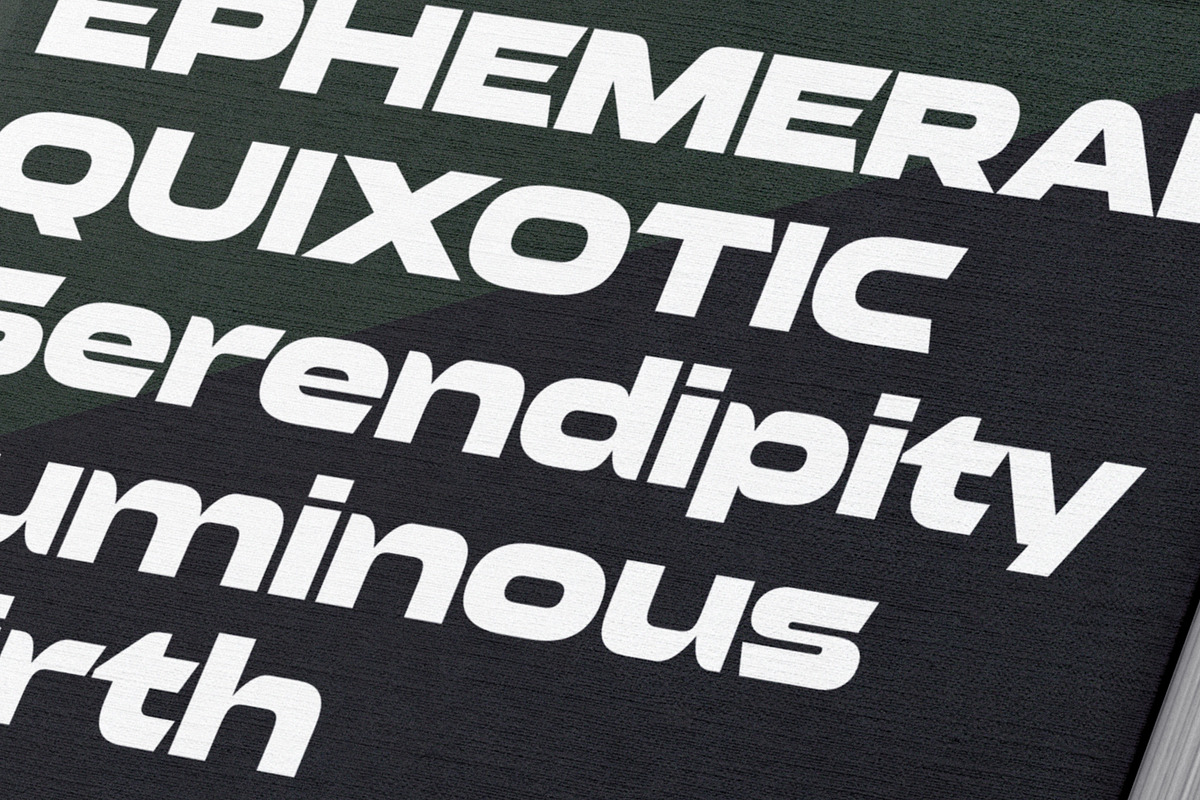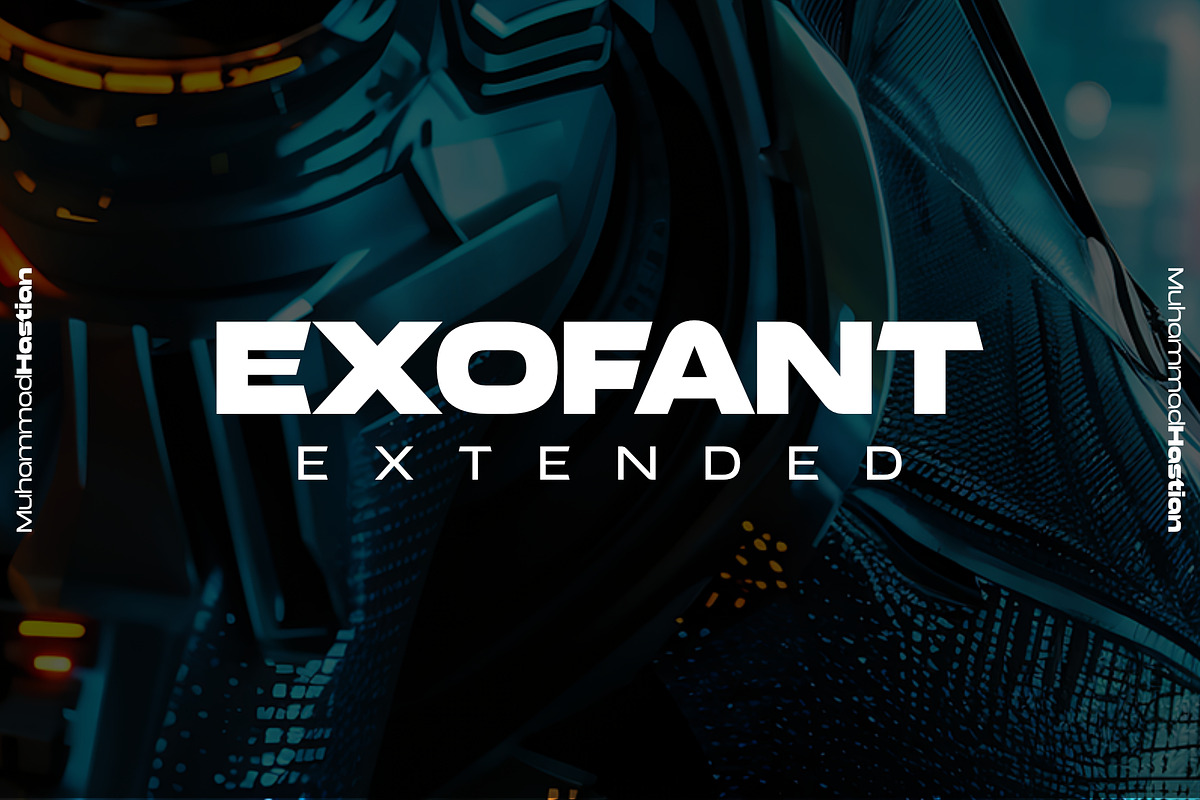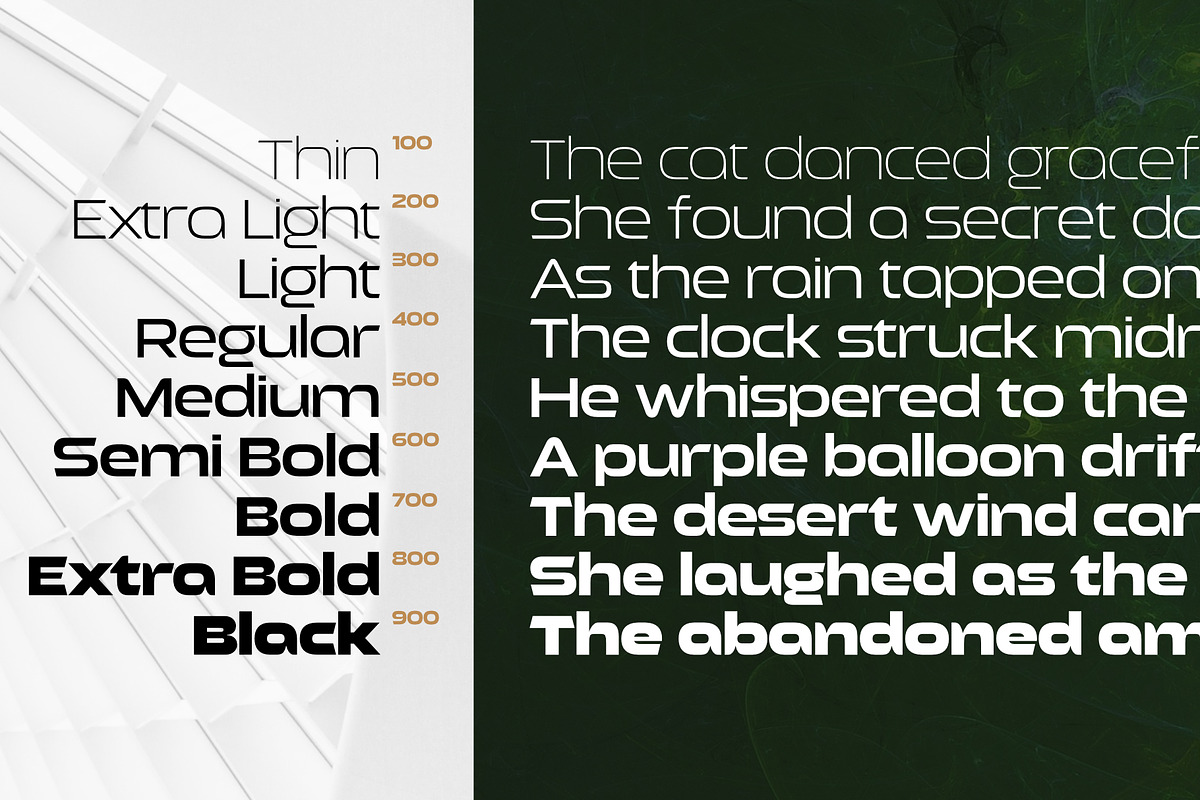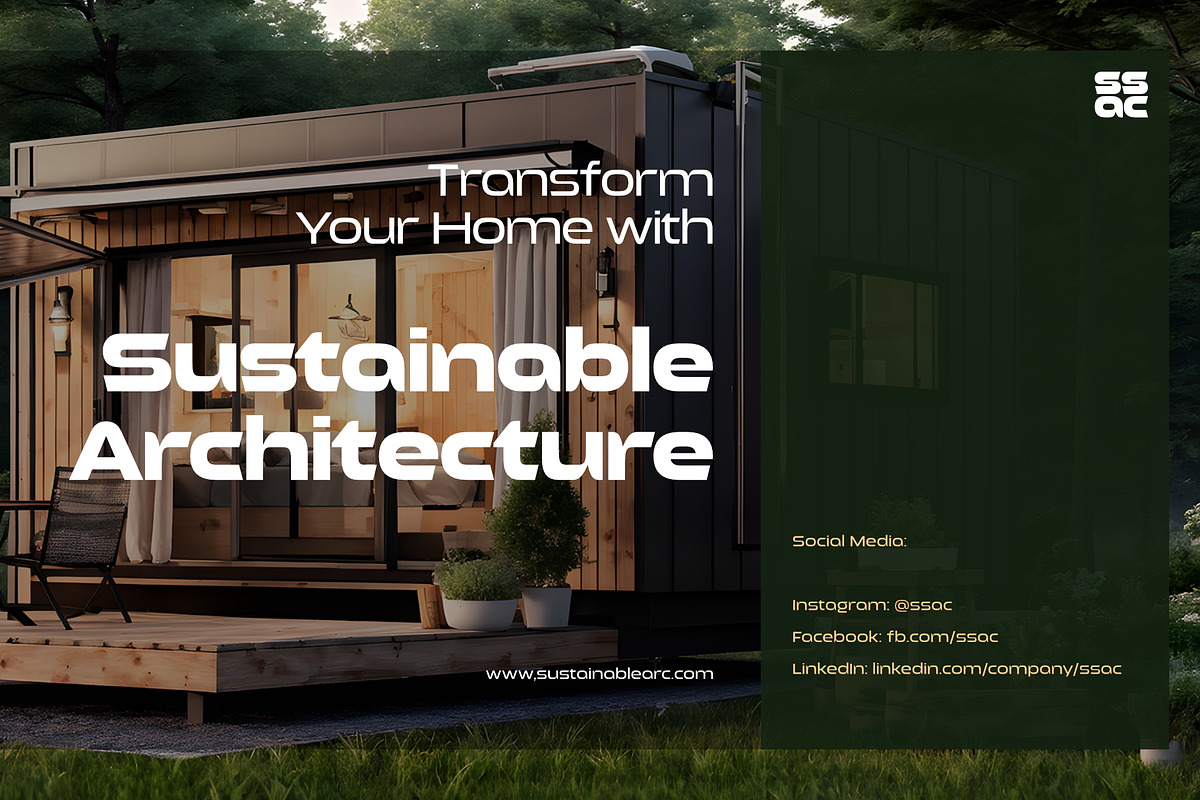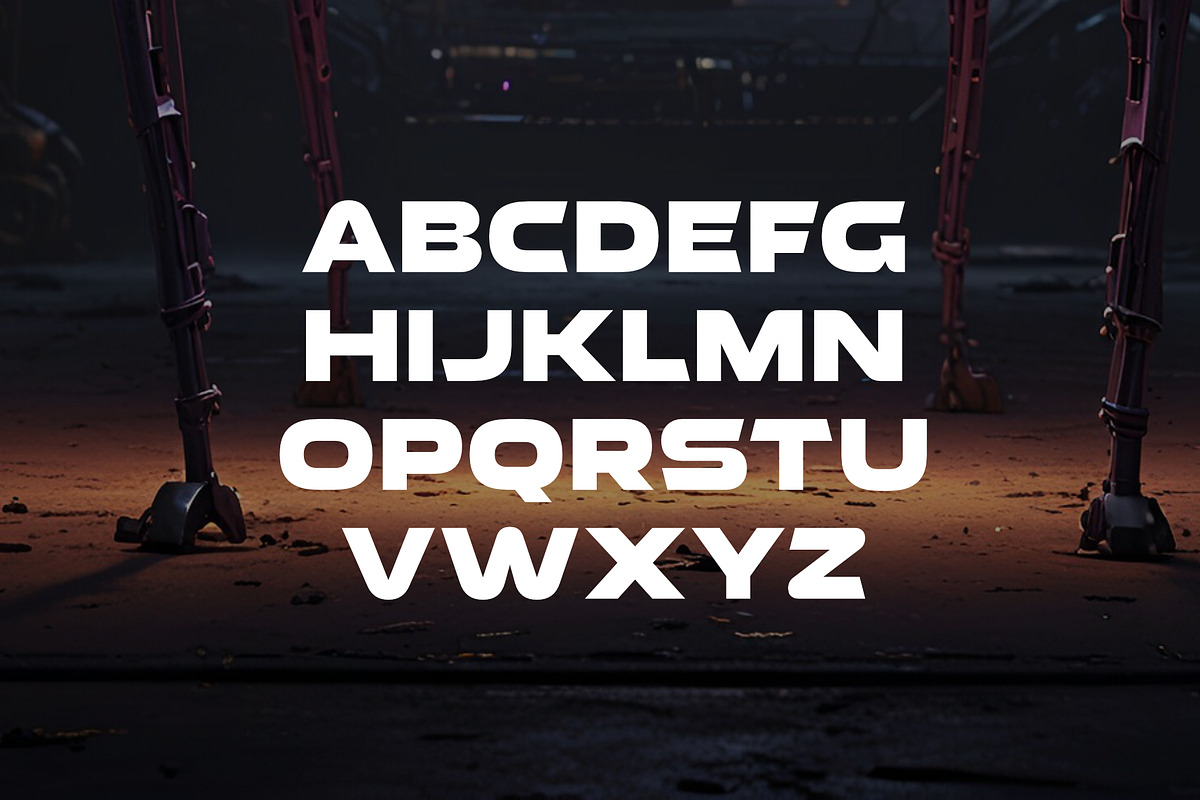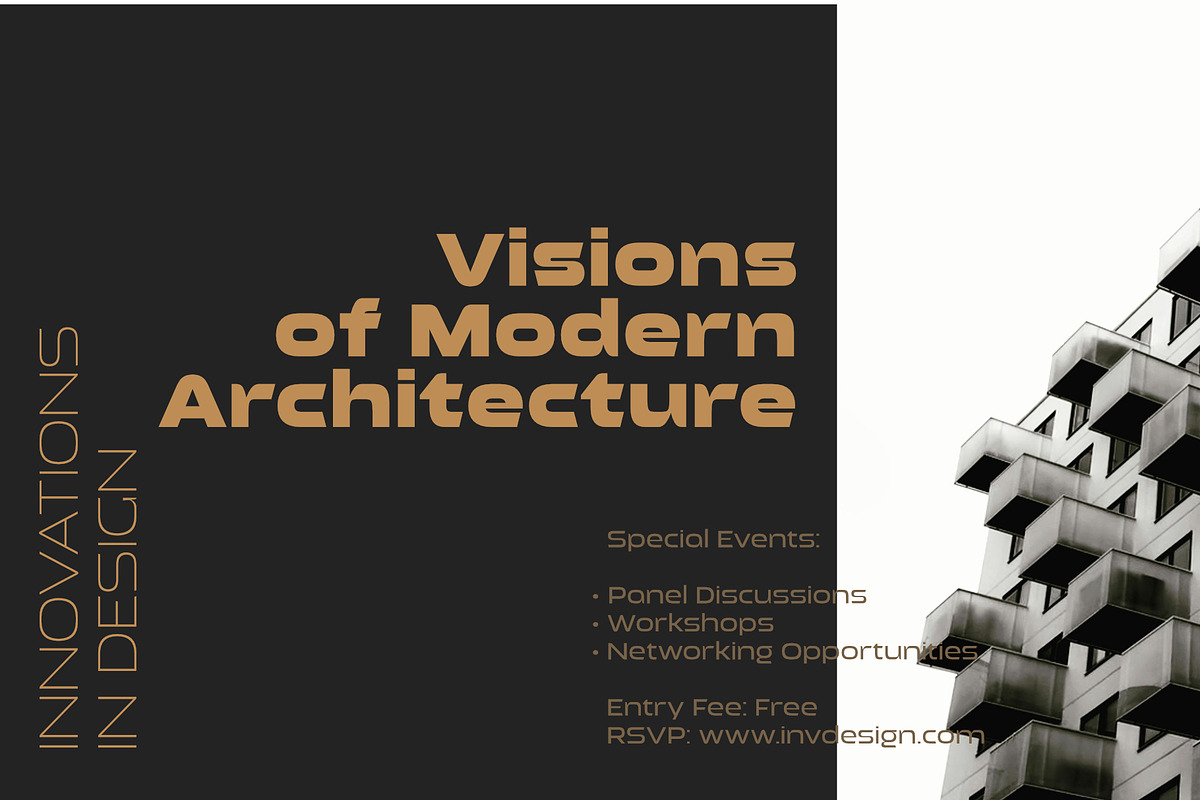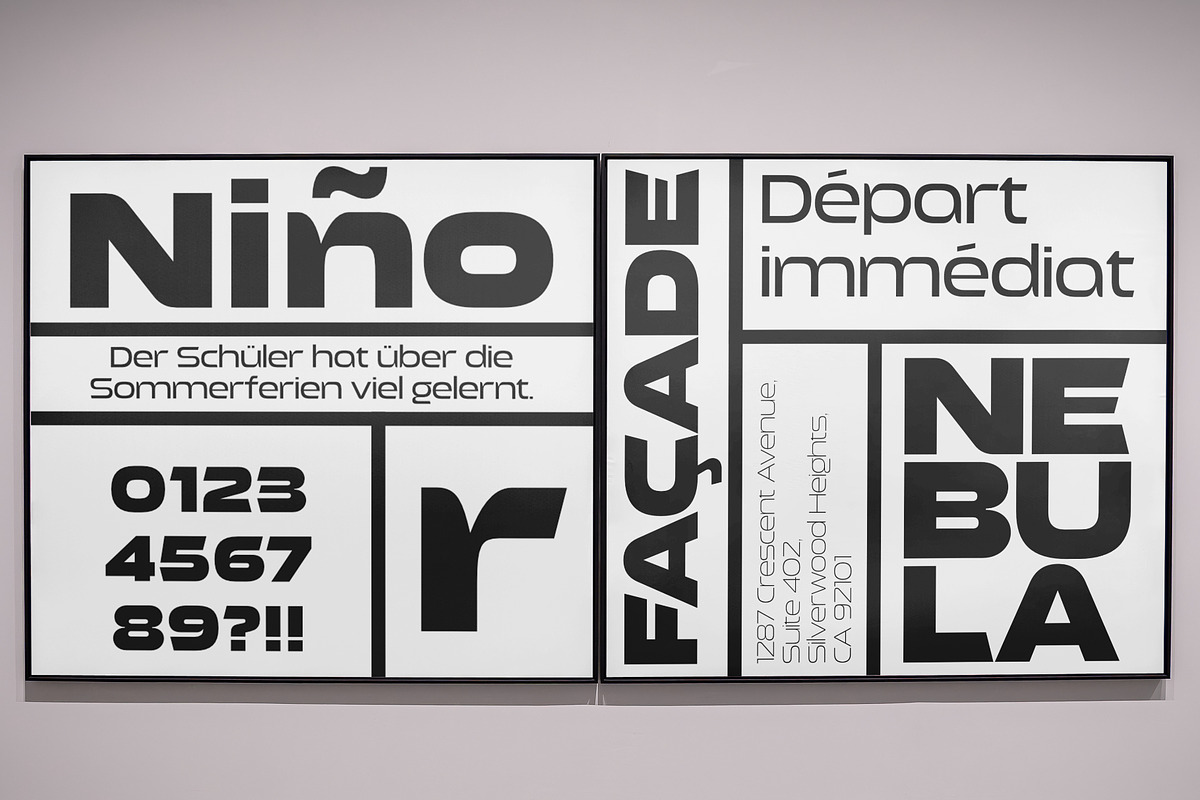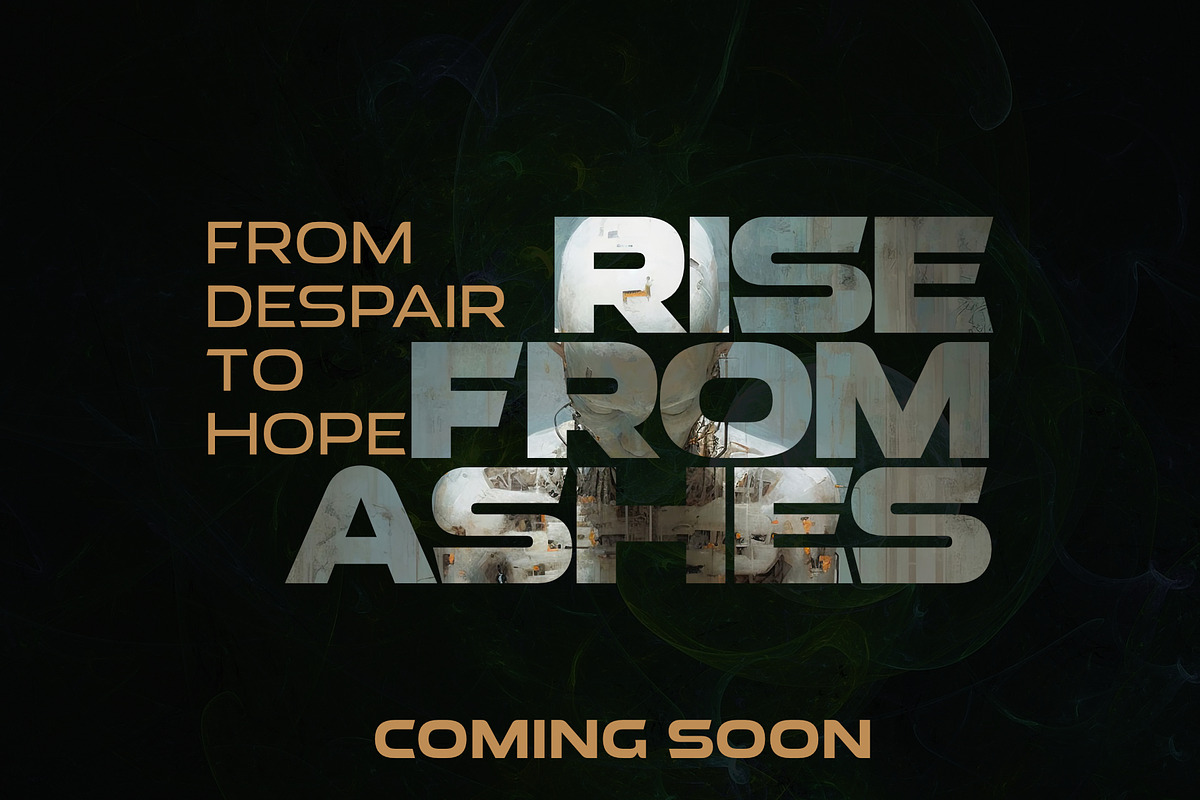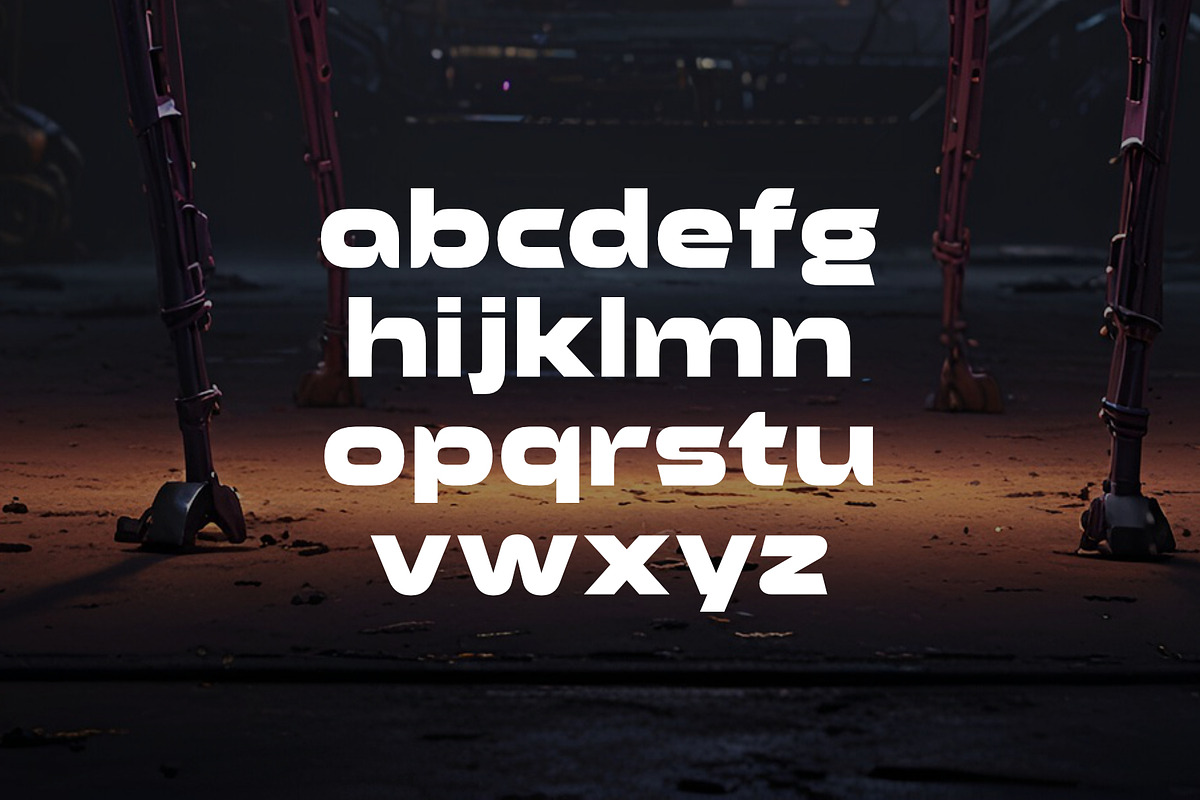
Exofant
Exofant is an expanded, square, and modern sans-serif typeface that combines sleek geometric shapes with a futuristic edge. Its sharp angles and clean lines give it a bold, architectural presence, making it perfect for contemporary designs that require a professional and cutting-edge look. The wide, rectangular letterforms are balanced by smooth curves where needed, adding versatility without compromising its structured appeal.
This font is especially designed for digital environments, tech branding, and minimalist interfaces, where precision and clarity are paramount. Exofant features 9 different weights, from a delicate thin to a black. The varying weights create dynamic contrasts within a single design or across multiple projects, providing the opportunity for sleek, cohesive layouts.
Its clean lines make Exofant an excellent choice for user interfaces, corporate designs, logos, and editorial layouts where simplicity meets innovation.